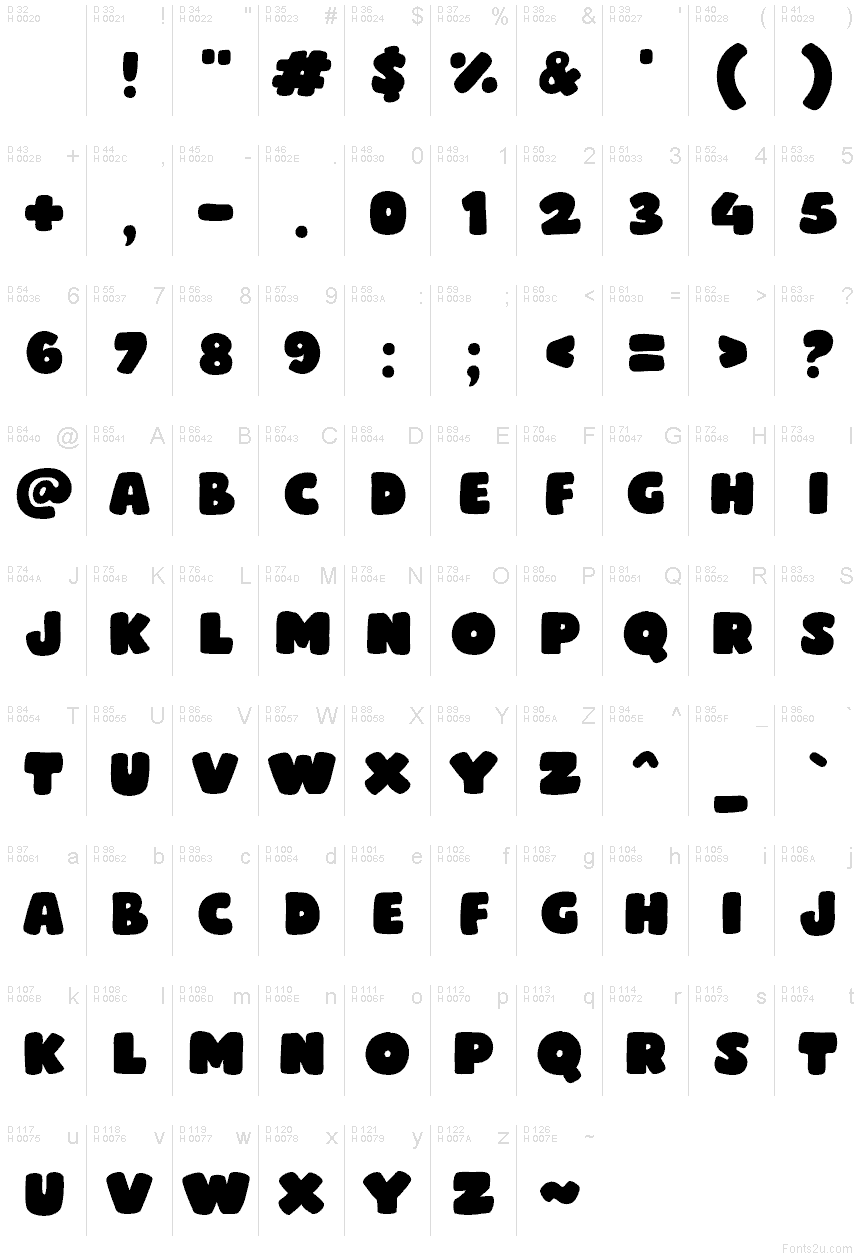
Gembul
Gembul font by Origin Type is a cartoon display font with a bold character, rounded structure, and soft corners. Its casual and approachable style secures its friendliness for any audience while the expandable letter size makes it readable even from afar. The free contemporary font also carries retro inspiration that reminds us of comics and cartoon series.